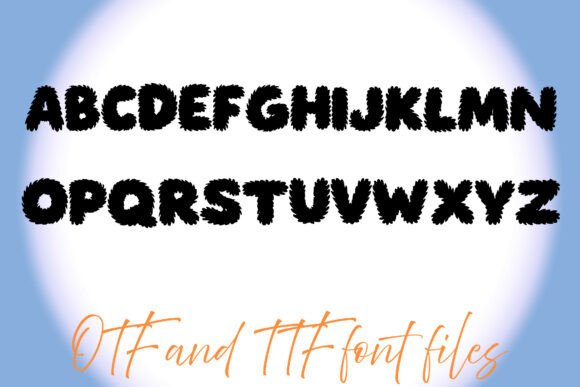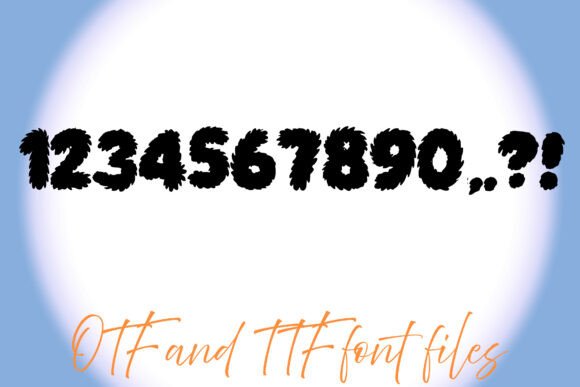
Who hasn’t had that moment where they see something adorable and instantly want to create with it? For designers, it’s often a fleeting glimpse of a cute character, a whimsical illustration, or a playful font that sparks an idea. For me, it was a friend’s cat wearing a tiny party hat. It was so adorable that I just had to create something with it – and that’s how the idea for Furry Fluff Font was born.
Furry Fluff Font is a bold and fluffy typeface designed to bring a playful touch to any design project. Whether you’re working on an animal-themed branding project, a kids’ book, or a costume party invitation, this font is sure to bring a smile to your audience’s face. As a designer, you’ll appreciate the versatility and fun personality of Furry Fluff Font, making it a valuable addition to your typography toolkit.
Furry Fluff Font Key Features
- Font Family: Furry Fluff Font is a custom-designed sans-serif font, perfect for creating a playful and whimsical feel in your designs.
- Unique Characteristics: Furry Fluff Font features a distinctive, rounded shape with soft edges, creating a friendly and approachable atmosphere in your designs.
Furry Fluff Font Review
Overall, I’d say the Furry Fluff Font has some great qualities, but it also has some areas where it falls short. Let’s dive into the details!
- Whimsical, playful feel: The Furry Fluff Font has a charming, childlike quality that’s perfect for projects that need a lighthearted touch.
- Good legibility: Despite its quirky appearance, the font is still easy to read, even at smaller sizes.
- Cute character variations: The font includes a range of fun characters, like smiley faces and stars, that add to its whimsical charm.
- Limited font weights: The Furry Fluff Font only comes in a few font weights, which can make it difficult to create a consistent look across different text sizes.
- No professional-grade features: While the font is great for personal or creative projects, it may not be suitable for formal or corporate work.
- Some letterform inconsistencies: A few of the letterforms feel a bit wonky or inconsistent, which can be distracting in certain contexts.
Overall, I think the Furry Fluff Font is a fun, unique choice for projects that need a playful touch. While it may not be the best fit for every design situation, it’s definitely worth considering for the right kind of project.
Getting the Most Out of Furry Fluff Font
For best results, use Furry Fluff Font in conjunction with bold or italic styles to create visual interest. Experiment with different font sizes and colors to add emphasis and create a unique look.
Furry Fluff Font is ideal for use in children’s books, greeting cards, and other creative projects where a playful, whimsical feel is desired. It pairs well with illustrations and images that feature animals or fantasy characters.